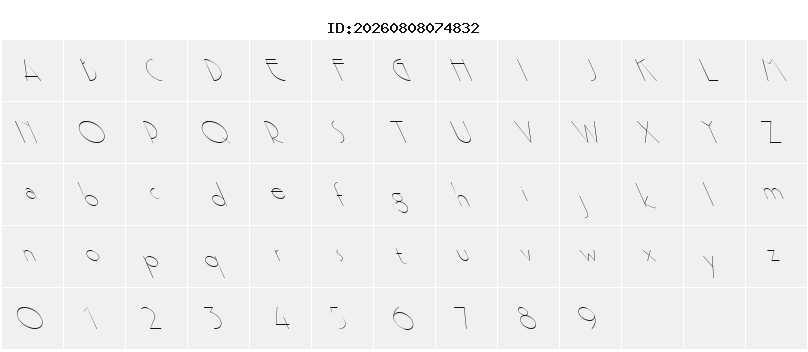
About Premi Leftified.ttf
Premi Leftified.ttf is a modern, elegant sans-serif font designed for ultimate readability and visual harmony. Perfect for branding, headlines, web design, and print materials.